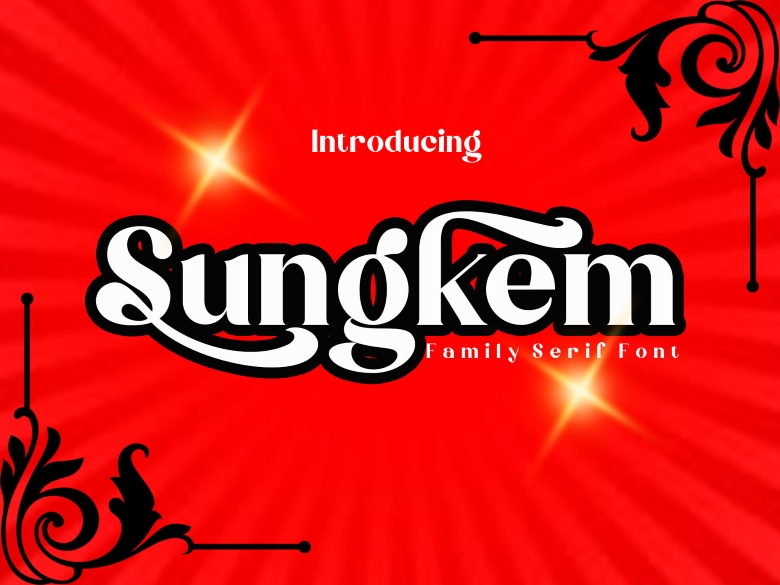
Sungkem Font
Sungkem is a fancy, daring, and pretty fresh Modern font that can precisely epitomises elegant typographic balance that can serve for miscellaneous designing tasks such as logos and branding, social media posts, commercials, greetings cards, stationery, invitations, T-shirts, clothing, packaging, posters, and many others for the other product designs.
Sungkem Serif Font